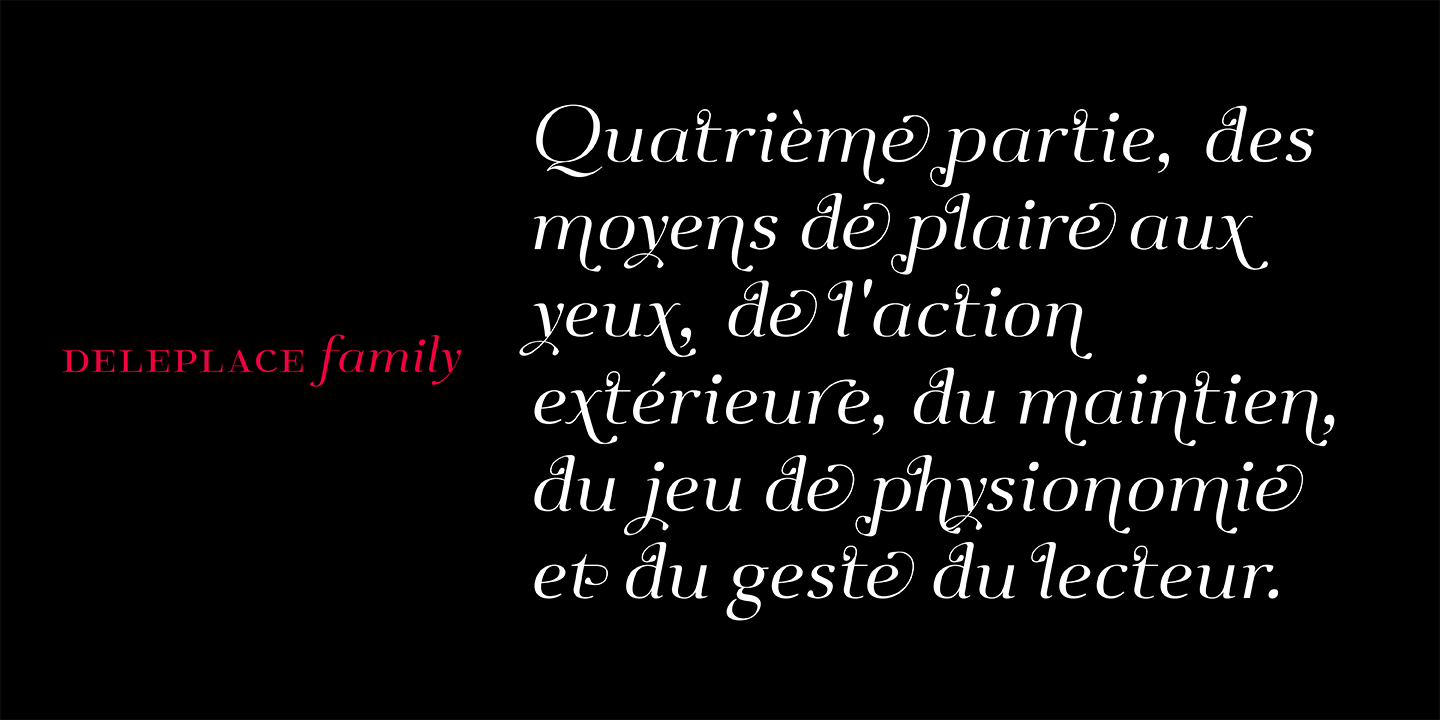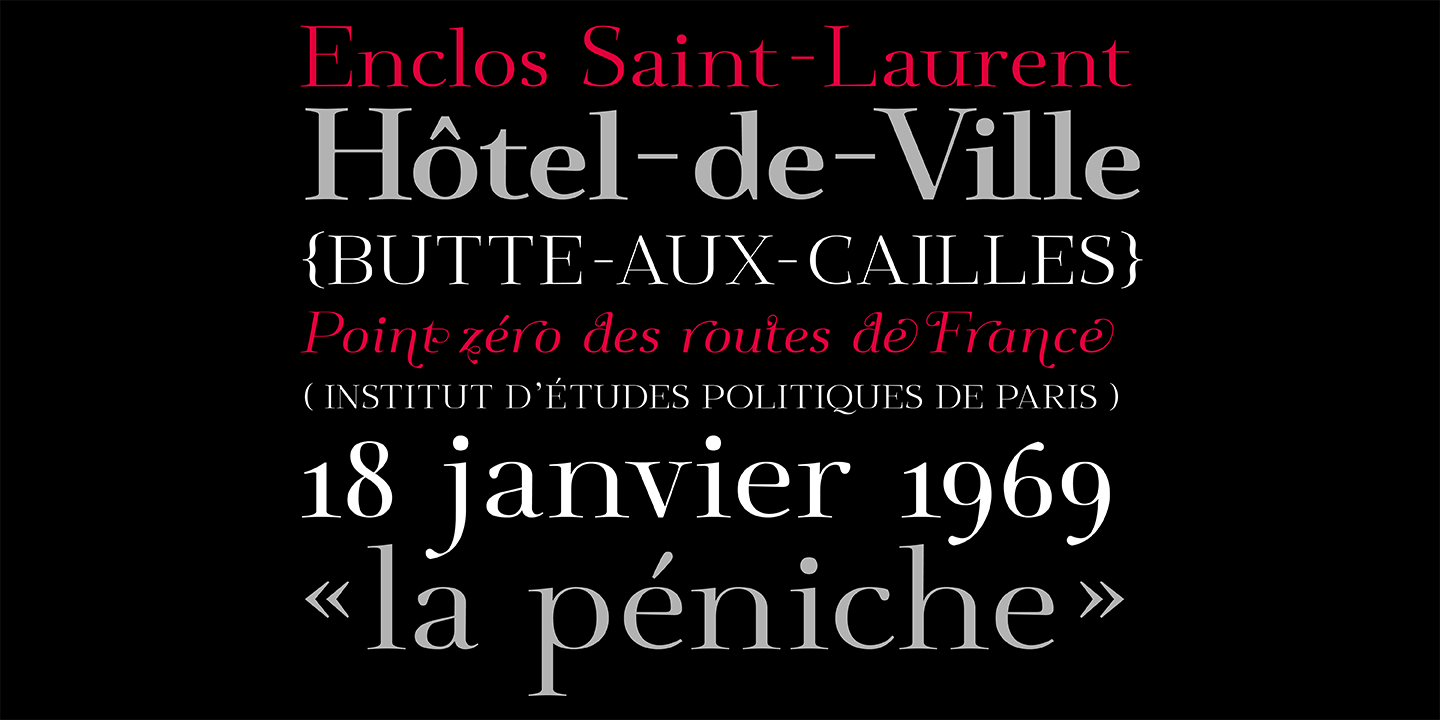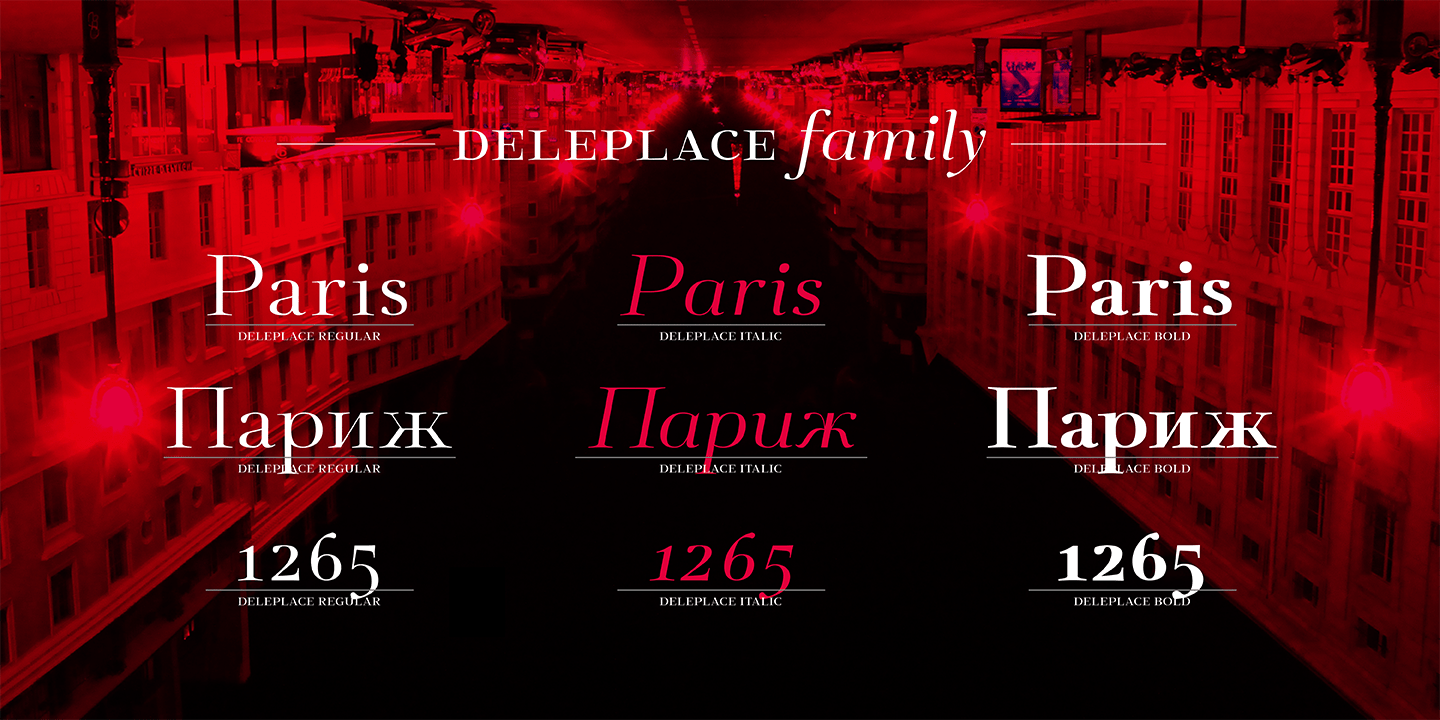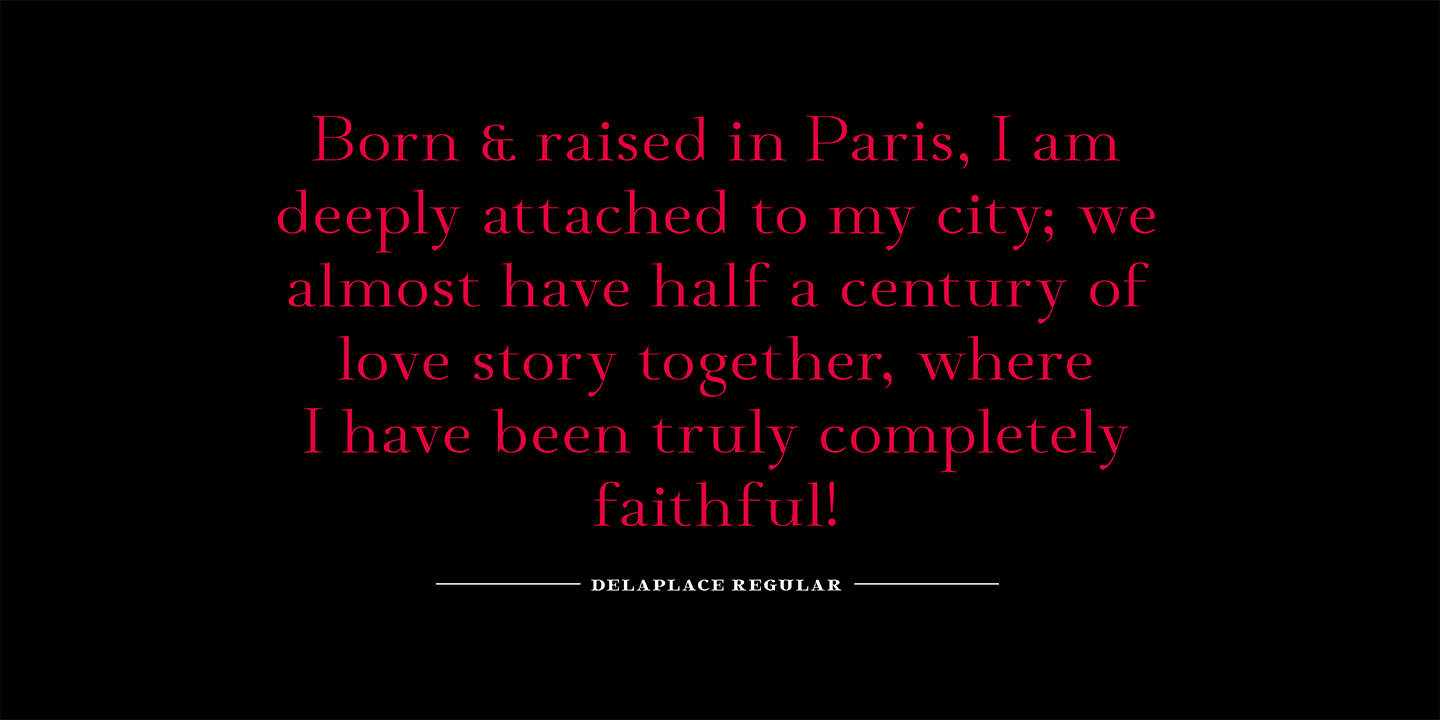
About Deleplace
Deleplace is a modern, delicate and refined typeface that is both contemporary and hints at a classical past. Featured in 3 weights, this family includes an extended language support that covers extended latin and cyrillic scripts. It equally includes…